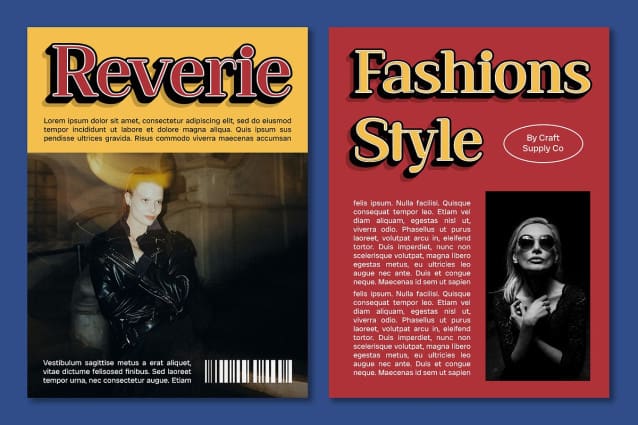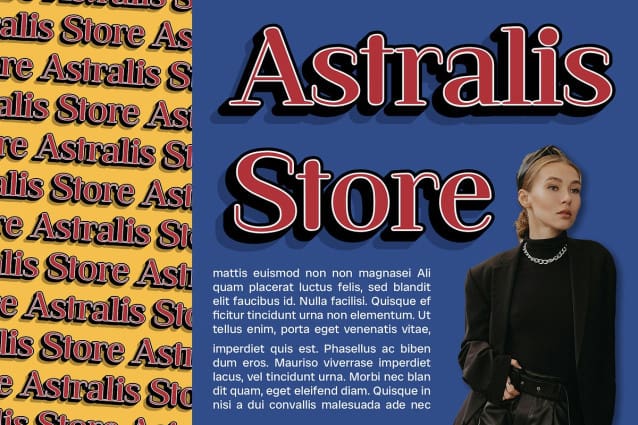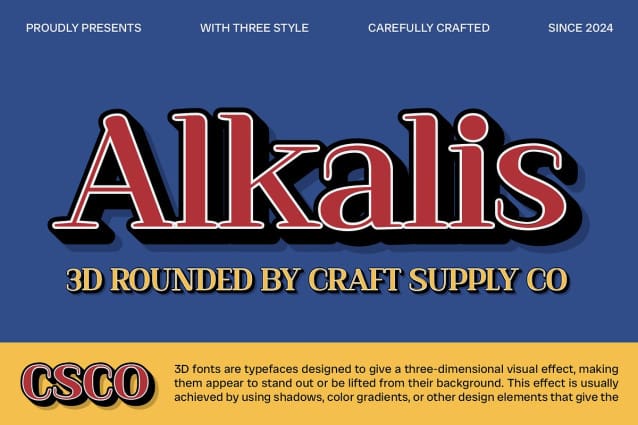
Alkalis Rounded 3D Font
Alkalis Rounded 3D Font is a modern serif font that combines the timeless elegance of serif letterforms with smooth, rounded shapes. This design adds a contemporary touch, making it perfect for projects that require a blend of tradition and modernity.
Captivating 3D Effect for Dimensionality The elegant 3D effect enhances the font’s dimensionality and depth, creating a stunning and dynamic visual impression. This feature makes Alkalis Rounded 3D stand out, adding an extra layer of sophistication and visual interest to any design.
Ideal for Luxury Branding and Elegant Designs This font is ideal for luxury branding projects, editorial design, and elegant invitations. Its unique combination of classic serif elements and modern 3D effects provides a luxurious and classy finish to any design application.
Balancing Tradition and Innovation Alkalis Rounded 3D achieves a perfect balance between tradition and innovation. Its elegant, rounded shapes and captivating 3D effect create a distinctive and refined look, making it a versatile choice for a wide range of creative projects.